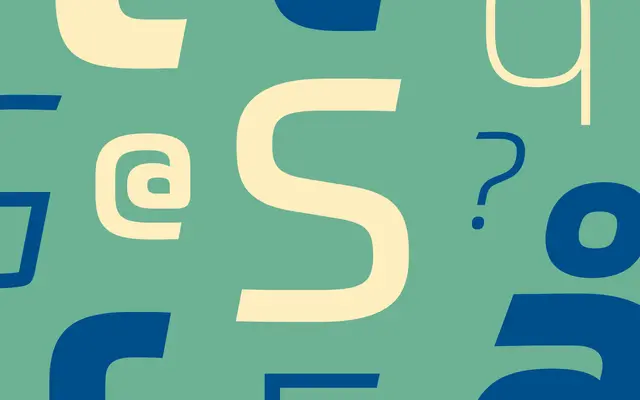
Prometo
Dalton Maag · Fabio Haag, Fernando Caro · 2017
A square industrial sans by Fabio Haag and Fernando Caro built for signage, titles and billboards, with seven weights from Thin to Black plus italics.
A square industrial sans by Fabio Haag and Fernando Caro that reads as precision-engineered hardware. Fourteen styles run from Thin through Black with matching italics, drawn for display use at scale on signage, titles and billboards. The straight-sided counters and clipped terminals push it towards engineering, automotive and technology contexts where you want a precise, mechanical voice without falling into a generic geometric.
Dalton Maag describe Prometo as an instantly recognisable square sans with an industrial feel, drawn as if precision-engineered, with an extensive weight range intended for display use across signage, titles and billboards.